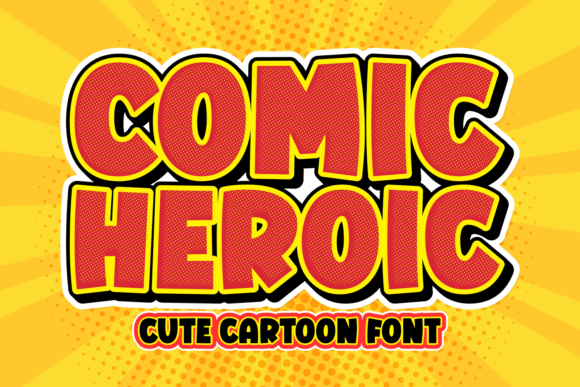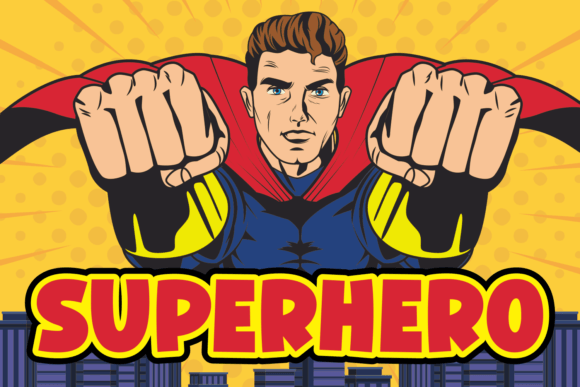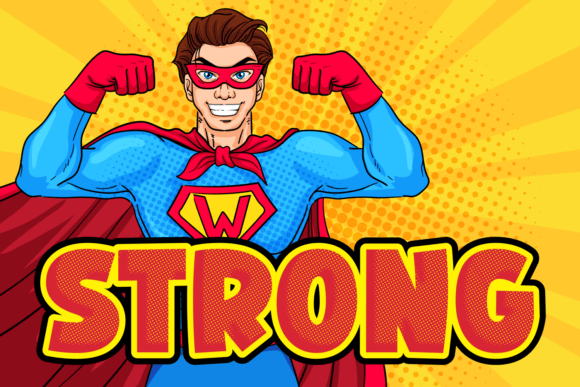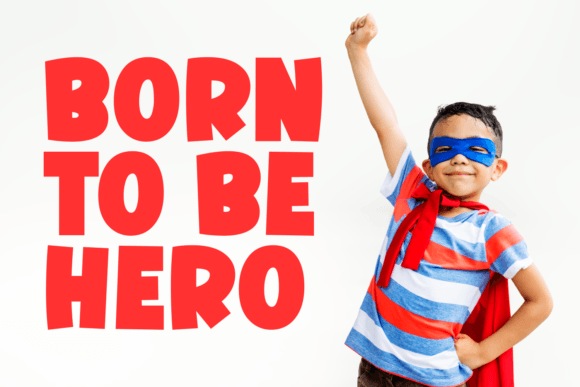
Comic Heroic Font
About the Comic Heroic Font
Elevate your designs with Comic Heroic Font, a font that combines sophistication with readability. Comic Heroic is a cute and powerful display font. Having thick and chunky characters, this remarkable superhero-inspired font is perfect for creating bold and striking typography. Give it a try in your next creative project!
Comic Heroic’s bold, chunky style makes it ideal for headlines, posters, and branding projects needing a powerful, playful presence. It excels in short, impactful statements, grabbing attention immediately. However, its strong character isn’t suitable for body text or UI elements requiring high readability. Long paragraphs set in Comic Heroic would be visually overwhelming and difficult to read.
Pairing Comic Heroic effectively requires considering its inherent energy. A clean sans-serif like Open Sans or a geometric sans-serif such as Futura would provide a sophisticated counterpoint, balancing its playful boldness. For a more whimsical feel, a rounded script font could be used sparingly for secondary text elements.
The font projects a friendly yet assertive personality – think superhero comic books or children’s entertainment brands needing a touch of dynamic energy. Avoid using it for projects requiring a sense of understated elegance or sophistication.
Comic Heroic Font Usage Examples
Comic Heroic Font Example